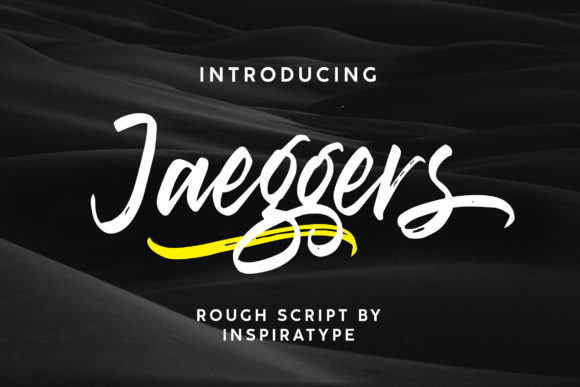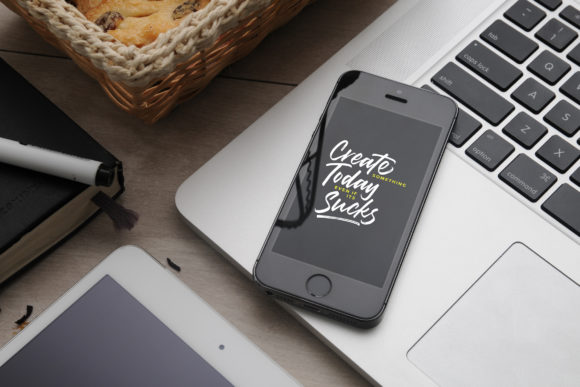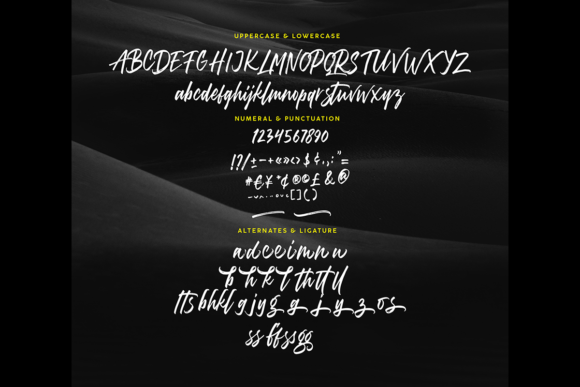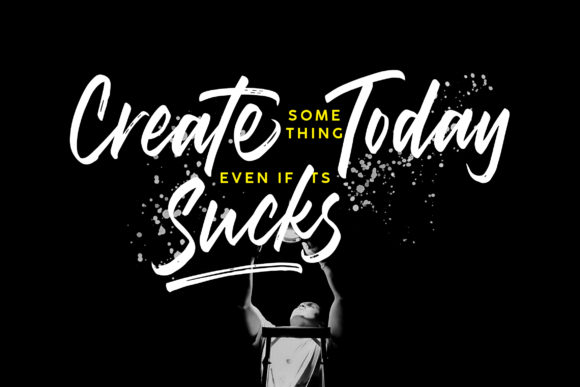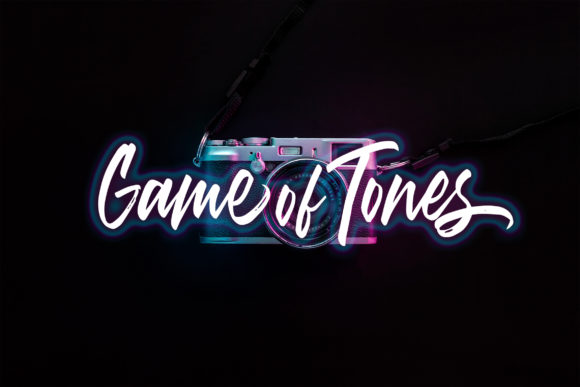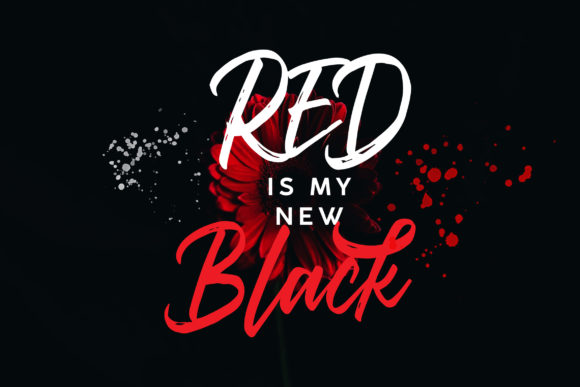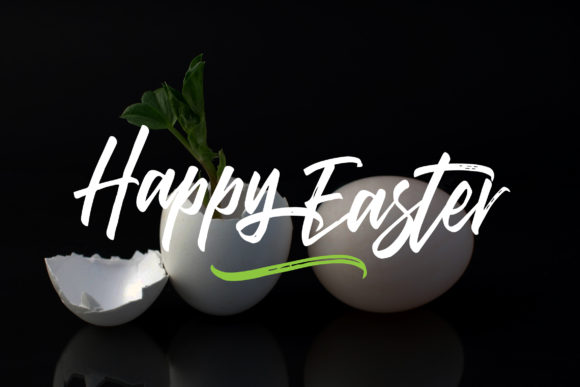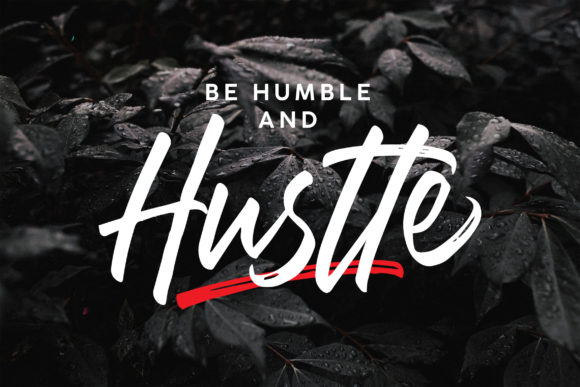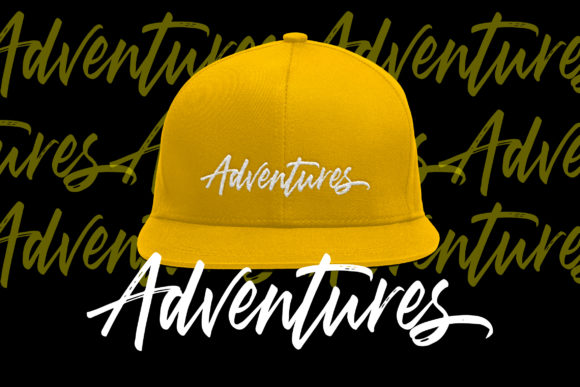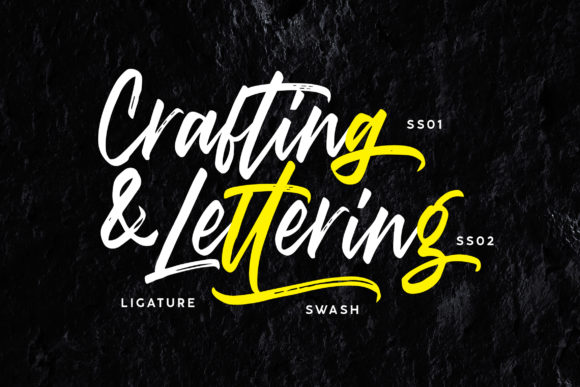
HomeScript FontsJaeggers Font Script Fonts Jaeggers Font FacebookXPinterestWhatsApp Jaeggers Font Poster 2 Jaeggers Font Poster 3 Jaeggers Font Poster 4 Jaeggers Font Poster 5 Jaeggers Font Poster 6 Jaeggers Font Poster 7 Jaeggers Font Poster 8 Jaeggers Font Poster 9 Jaeggers Font Poster 10 Jaeggers Font Poster 11 About Jaeggers Font Jaeggers is a handwritten font. Its casual look will take all your crafting designs to the next level! DOWNLOAD ON CREATIVE FABRICAThis font is sold and delivered by Creative Fabrica. Font Canyon may earn a commission if you buy through this link. People also explored Ravenala Font Hello Cartel Story Font Fleurious Font Orange County Racetrack Font Strike Font Hantlay Font Romantic Kissing Font Yahiko Font 388 0 TagsJaeggers Font Previous articleDarling FontNext articleAneisha Font LEAVE A REPLY Cancel reply Comment: Please enter your comment! Name:* Please enter your name here Email:* You have entered an incorrect email address! Please enter your email address here Website: Save my name, email, and website in this browser for the next time I comment. Personal Use Free Antaro Personal Use Free Read more about this font Cloudy Night Personal Use Free Read more about this font Konexio Personal Use Free Read more about this font Adelia Font Personal Use Free Read more about this font BLOG Elegant Wedding Invitation Fonts – Handwritten & Script Fonts Elegant Wedding Invitation Fonts Your wedding day is one of the most important moments of your life, and every detail matters—including your invitation design. Our... How to Install and Use Fonts on Windows, macOS, and Web Projects Using Fonts in Digital Marketing: Tips to Strengthen Your Brand Identity Transform Your Website: Elevate Your Typography with 7 Best Web Font Generators